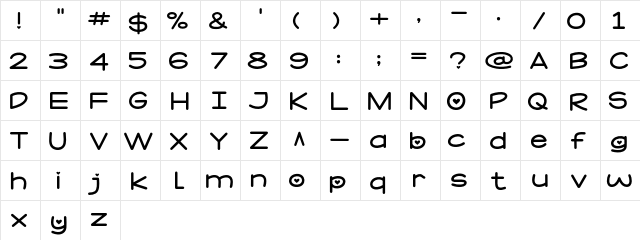
Cayank Qiu Regular
| Foundry | Polah |
| Designer | Polah |
Design Context for Cayank Qiu Typeface
Cayank Qiu offers clean, dependable letterforms without strong stylistic allegiance, making it a practical choice for designers who need flexibility.